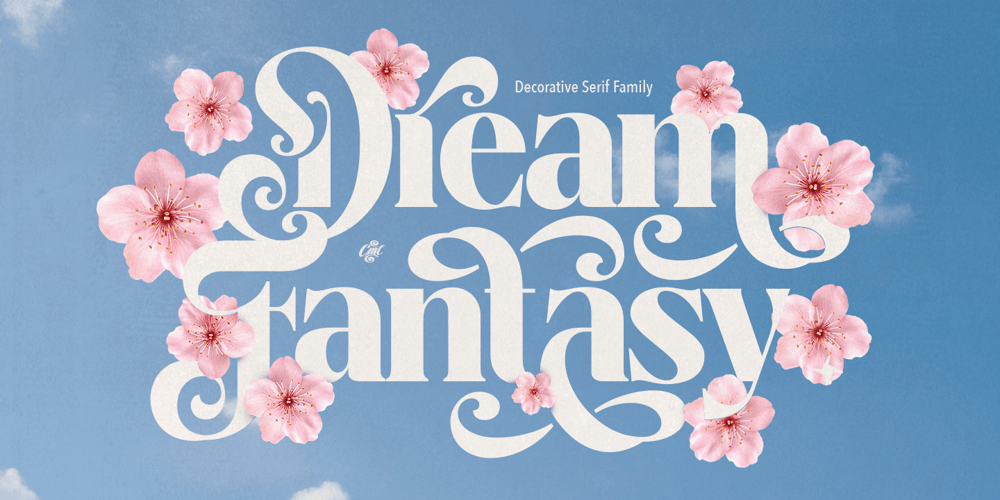
Dream Fantasy
Dream Fantasy font
Dream Fantasy Font Family was designed by Kadek Mahardika and published by Creativemedialab. Dream Fantasy contains 17 styles and family package options. Dream Fantasy , a whimsical decorative serif font!Inspired by the graceful curves of a tropical leaves in a magical forest, this font brings a touch of beauty and creativity to your designs.With plenty of stylistic alternates, you can mix and match to create unique typography, stunning headings, eye-catching logos, or beautiful monograms.Dream Fantasy comes in two styles, Regular and Display and each with eight different weights. Plus, it includes a variable format for even more flexibility in weight!Add Dream Fantasy to your font collection and let your creativity bloom